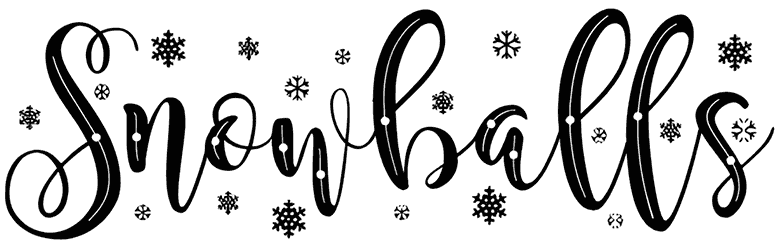
Snowballs Font
Plentiful snowflakes are exactly what can cheer up winter theme lovers. Just use Snowballs as a decorative calligraphy font and reach this aim. This Christmas font has a manuscript look with nice curves that are adorned with tiny wintery elements. You can set Snowballs on many designs for example posters, covers, banners, or along with others, and make them icy-cold.